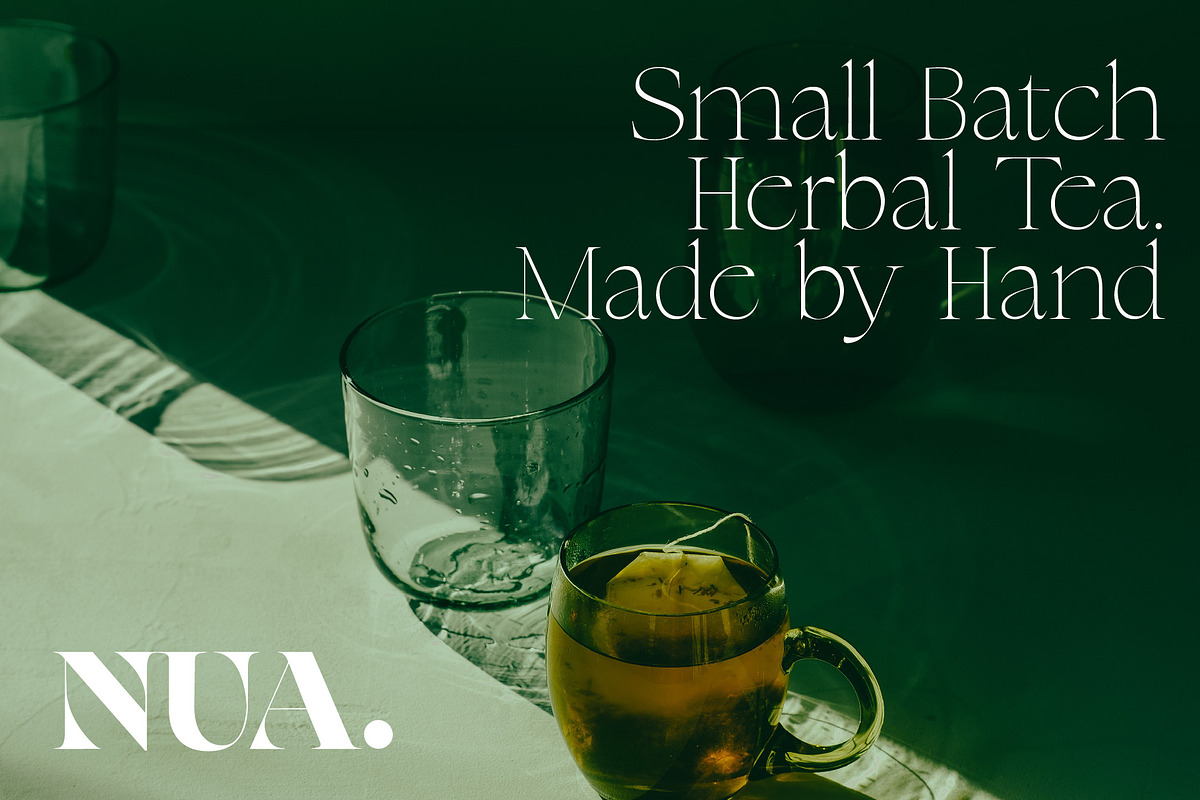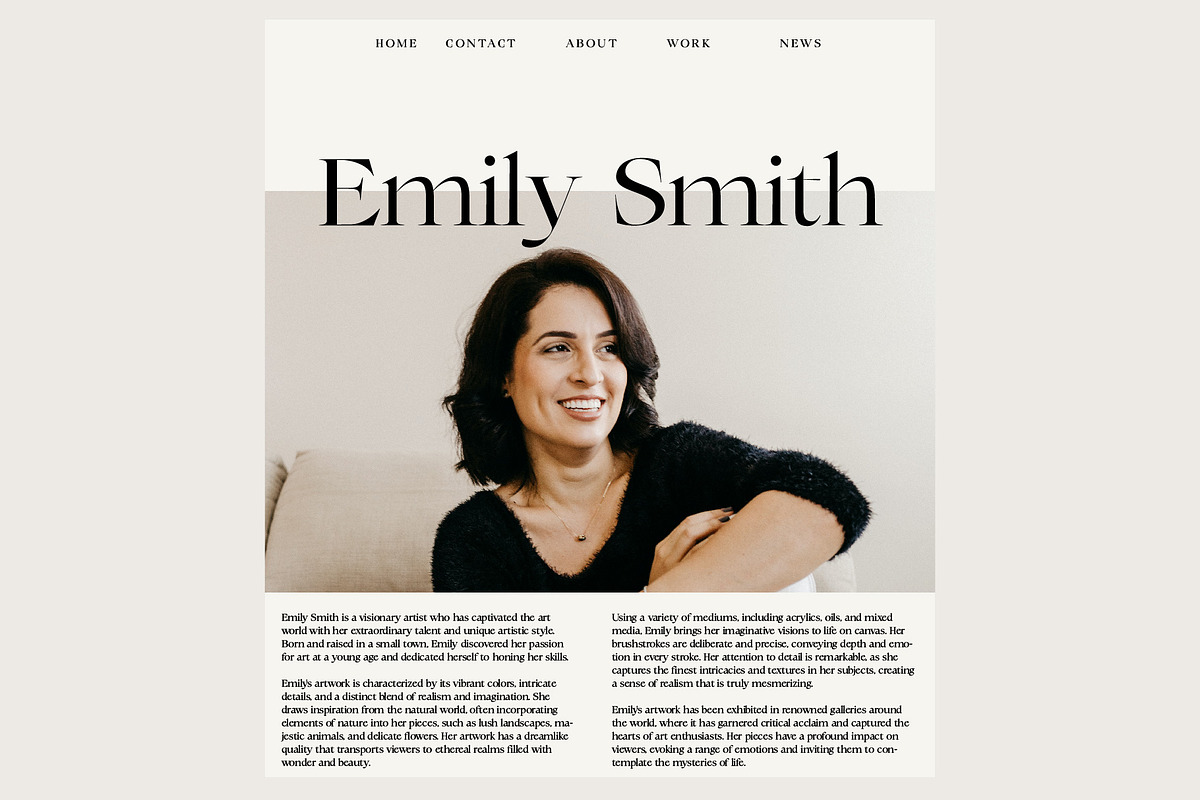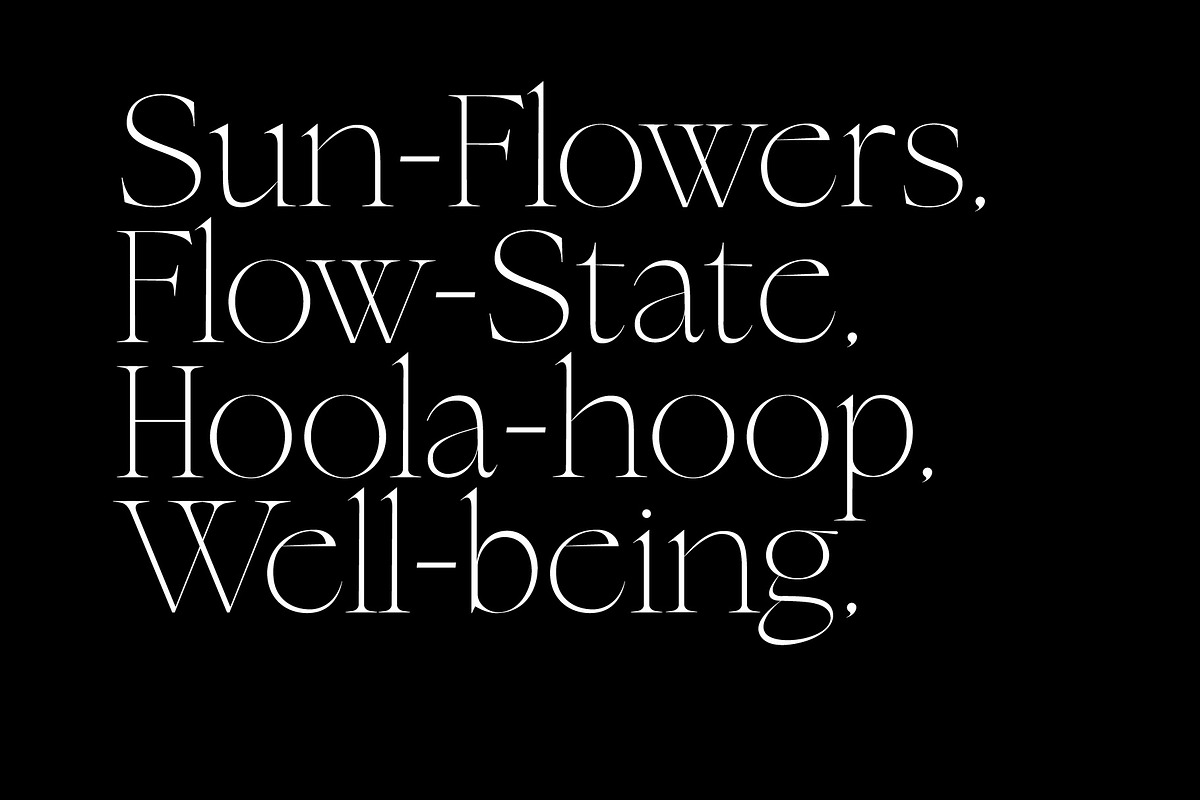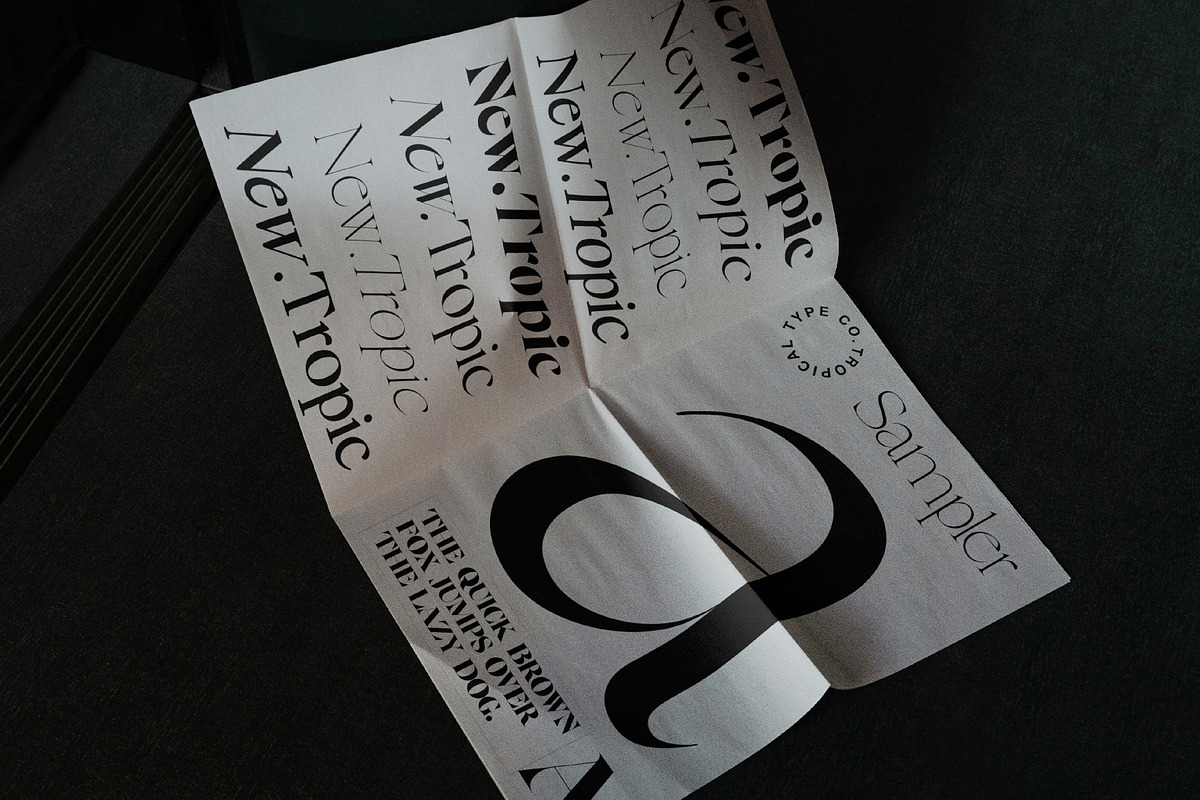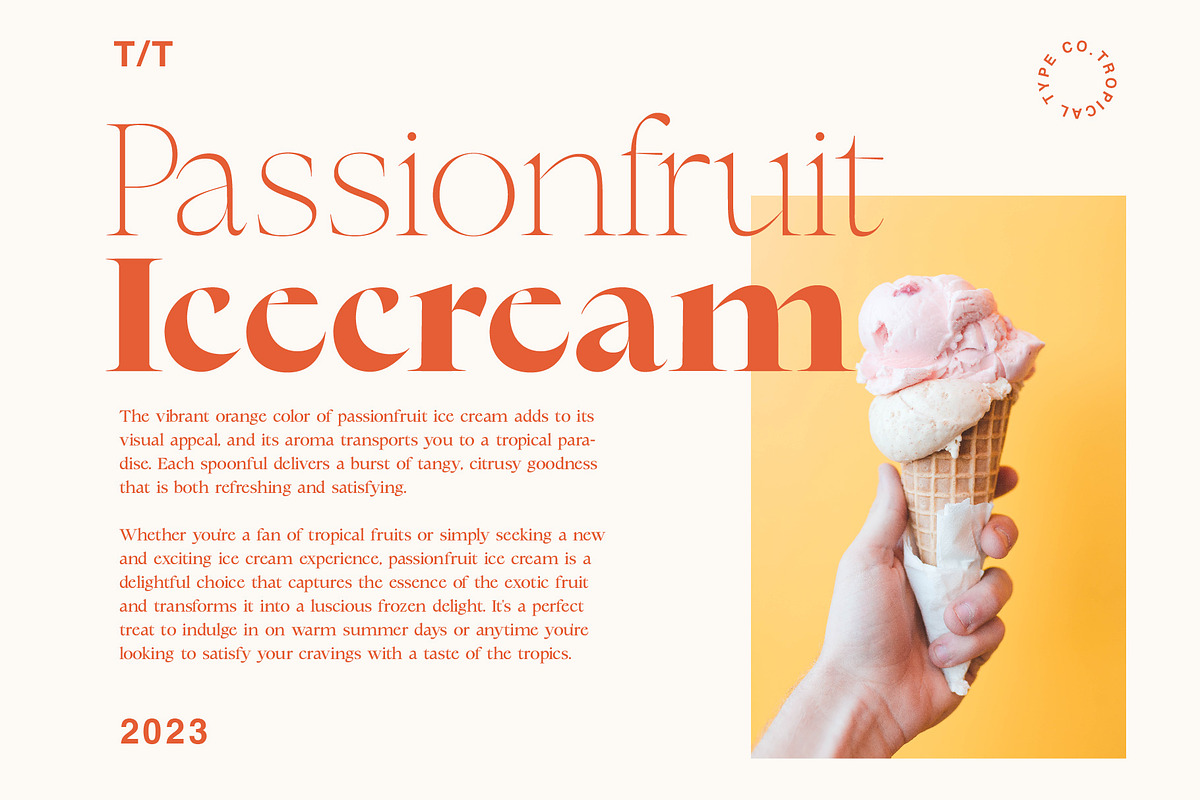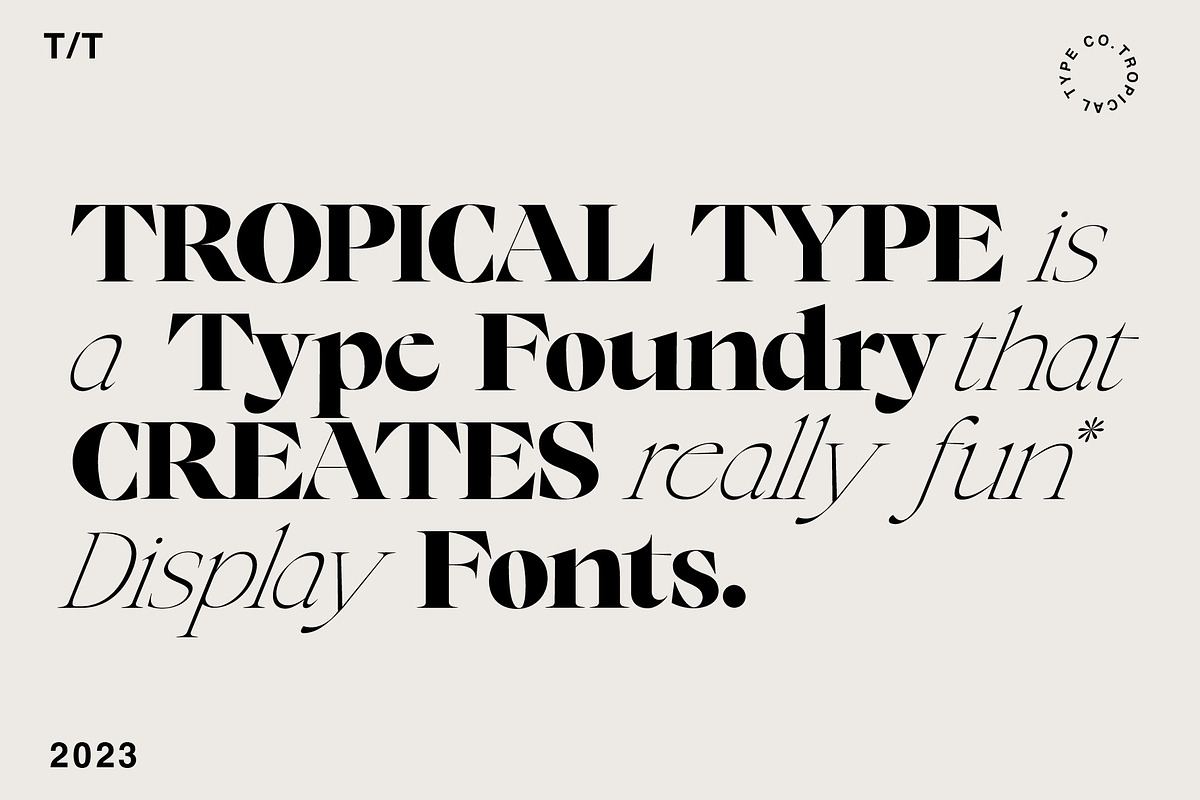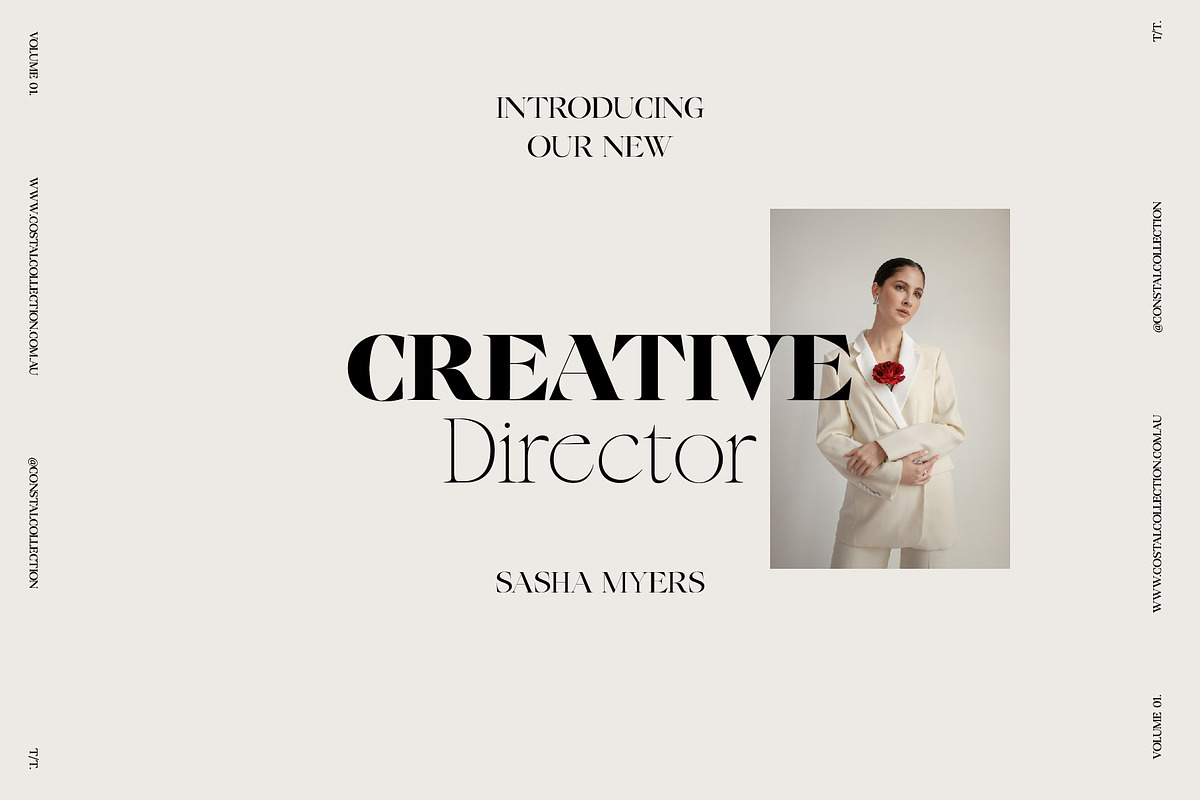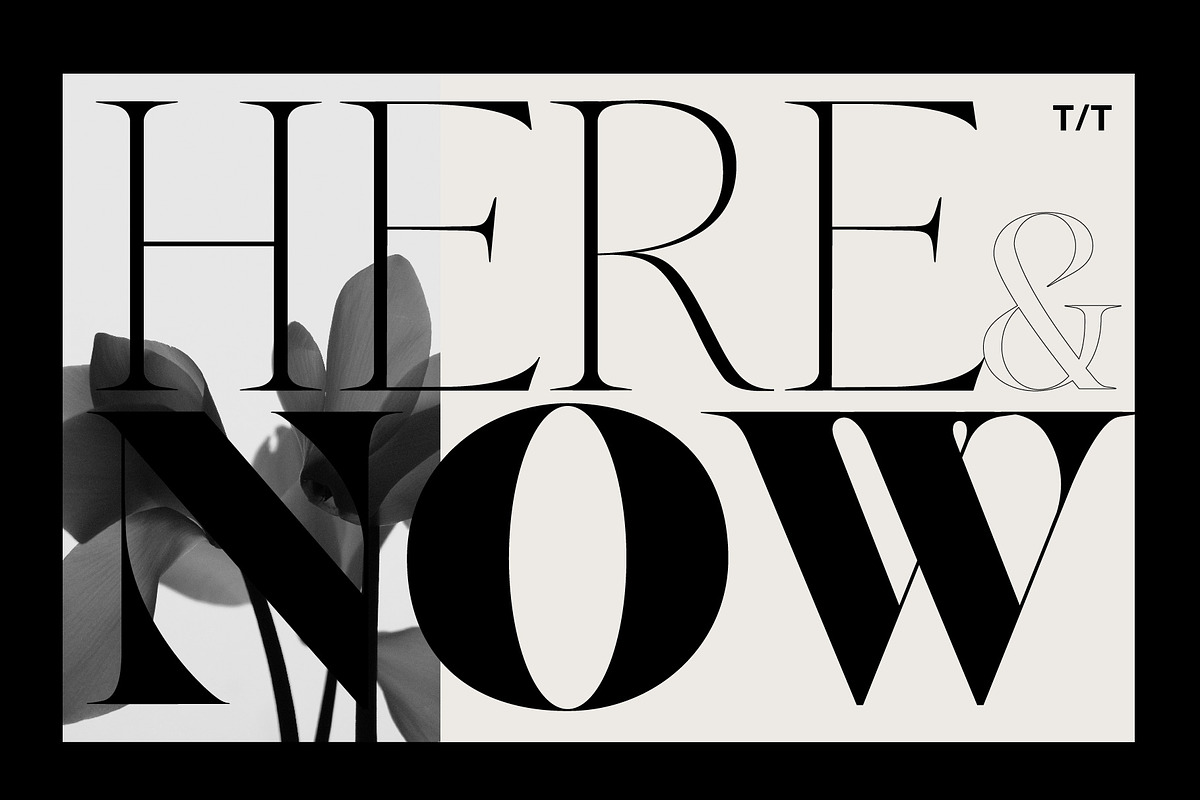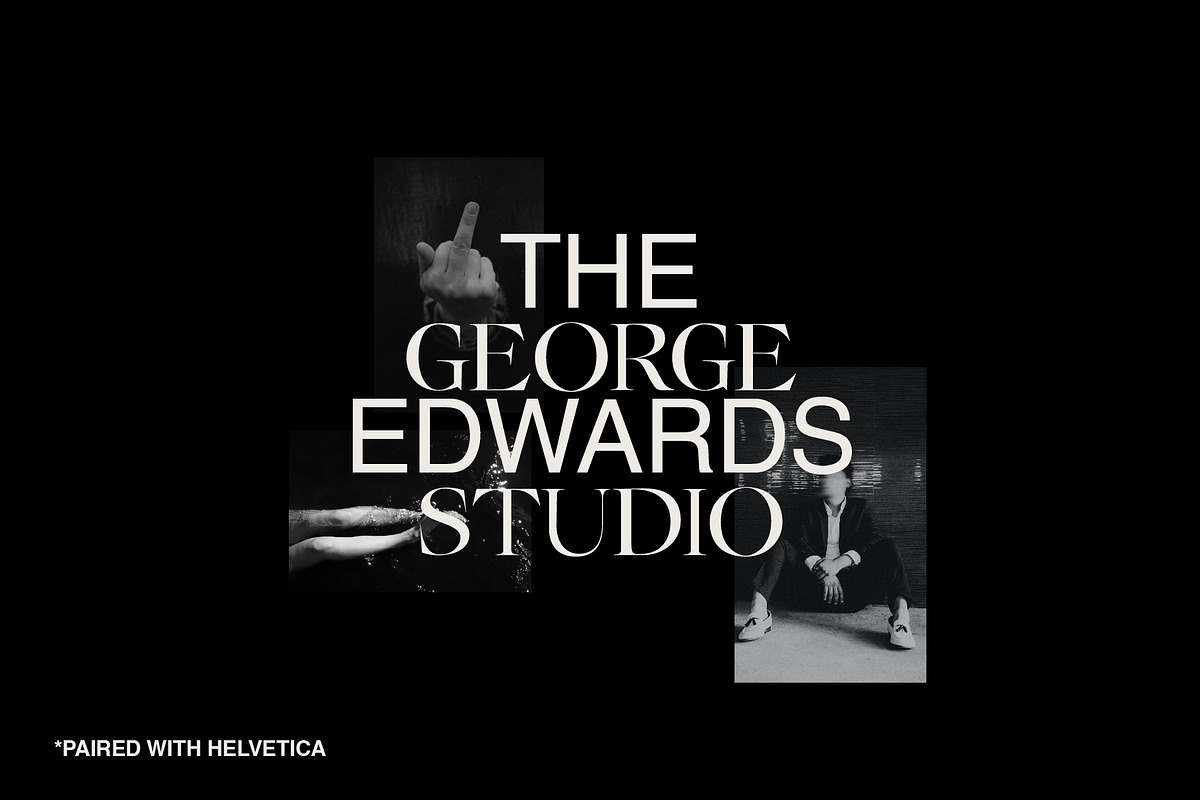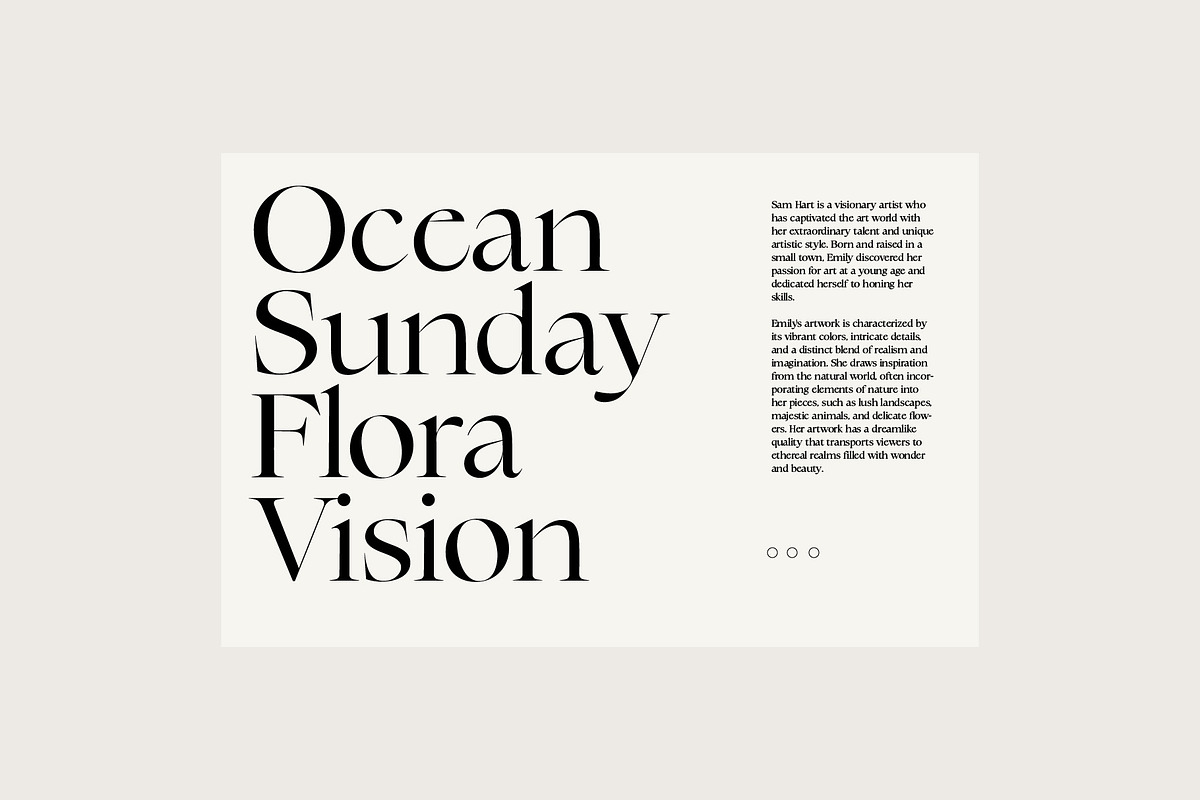
New Tropic - 8 Style Font Family
New Tropic is your go to serif font family. A modern typeface that is stylish but also generic enough to be used over and over. 4 distinct weights that all come with italics are included.
-Non English glyphs included:
ą á â à ä å ã æ ć ç ę é ê è ë í î ì ï ı ł ñ ń ó ô ò ö õ ø œ ś š ß ú û ù ü ý ÿ ž ź ż.Ą Á  À Ä Å Ã Æ Ć Ç Ę É Ê È Ë Í Î Ì Ï Ł Ń Ñ Ó Ô Ò Ö Õ Ø Œ Ś Š Ú Û Ù Ü Ý Ÿ Ź Ż